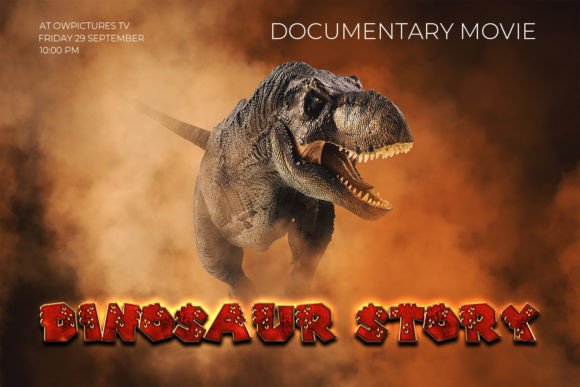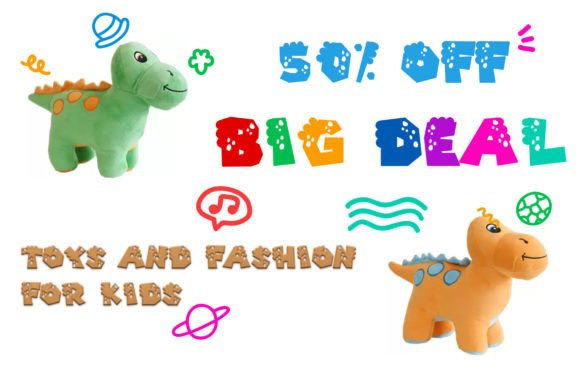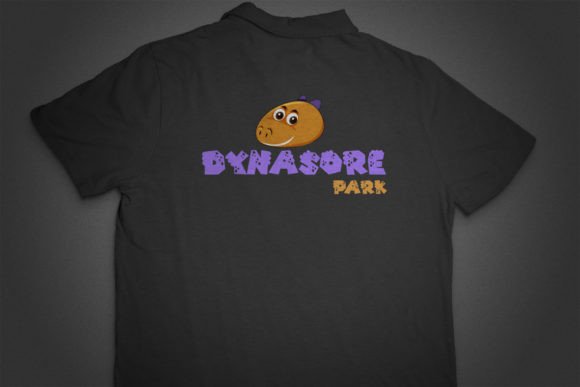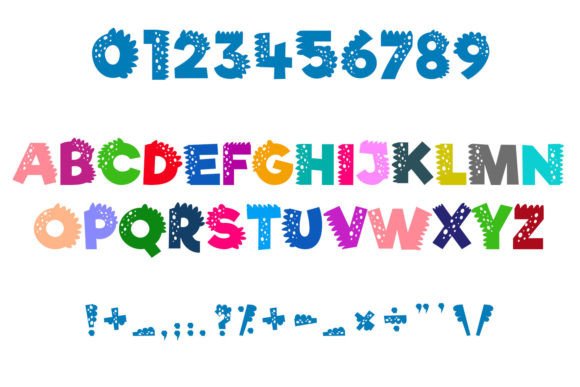
The Ultimate Guide to Funny Dinosaur Font: Adding a Roar of Fun to Your Designs
I’ll never forget the time I was working on a children’s birthday party invitation, and my client asked for a font that would make the kids go wild. I scoured the internet, tried out dozens of fonts, but nothing seemed quite right. That was until I stumbled upon the Funny Dinosaur font. It was like a breath of fresh air – playful, adventurous, and full of personality. In this article, I’ll share my experience with this fantastic font, and show you how to make the most of it in your designs.
An Honest Review of Funny Dinosaur Font
- ✨ Unique Dinosaur Elements: The font comes with a range of dinosaur elements, from cute and friendly to bold and adventurous.
- ✅ Perfect for Kids’ Projects: The font’s playful and fun vibe makes it an excellent choice for kids’ activities, school projects, or any design project that needs a youthful touch.
- 🎉 Highly Versatile: Funny Dinosaur font can be used for a wide range of design projects, from posters and flyers to invitations and social media graphics.
While Funny Dinosaur font is an excellent choice for many design projects, there are a few things to keep in mind:
- 🤔 Limited Character Set: As with any decorative font, the character set may be limited, so be sure to check the font includes the characters you need.
- ⚠️ Not Suitable for Body Text: Due to its playful and decorative nature, Funny Dinosaur font is best used for headlines, titles, or short paragraphs, rather than body text.
According to the font’s creator, Funny Dinosaur font was inspired by a childhood love of dinosaurs and adventure. The designer wanted to create a font that would bring a smile to people’s faces and add a touch of whimsy to their designs.
| Font Name | Funny Dinosaur Font |
| What type of projects is Funny Dinosaur font best suited for? | Kids’ activities, school projects, posters, flyers, invitations, and social media graphics. |